50 Modern Serif Fonts For Graphic Designers
Best Sans Serif Fonts for designers. The serif fonts are simple and modern looking fonts which are perfect for branding, logos, greeting cards, typographic quotes, book covers, websites, flyers, packaging designs and more. These professionally designed typefaces and fonts can significantly improve your design by simply included them in the project you are working on. All fonts are comes with a different handy set of Opentype stylistic alternates, ornament, ligatures, multiple language support and extras.
50 Best Sans Serif Fonts
Modern Elegant Serif Font
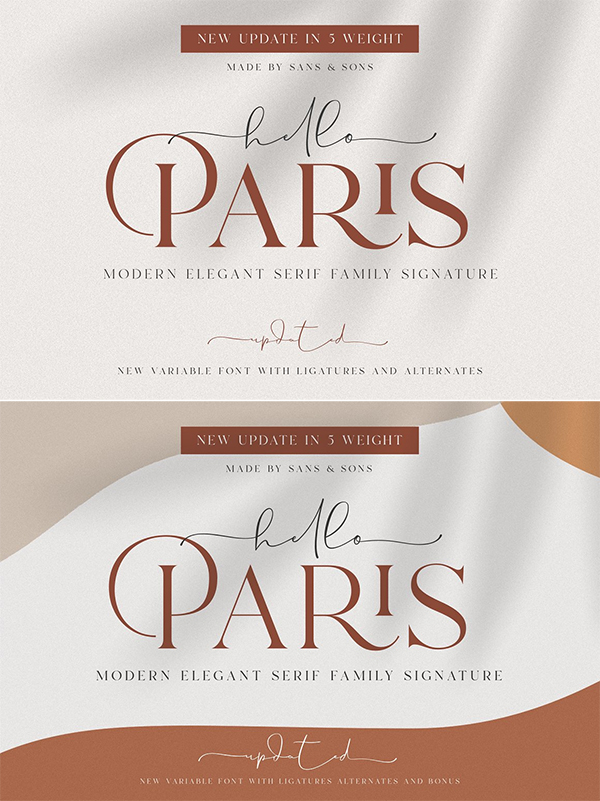
Rossanova Elegant Font
Rossanova is complete semi-serif font family. Its consist of 36 fonts; 2 optical size, 8 weight from thin to black with each matching italics. Rossanova is enrich with beautiful personality, its shaped in high contrast strokes for the normal optical style and moderate contrast strokes for the text styles which fit for reading. Contain more than 470 glyphs with some opentype features e.g, stylistic alternates, ligature, discretionary ligature, old number, variation of figures e.t.c.
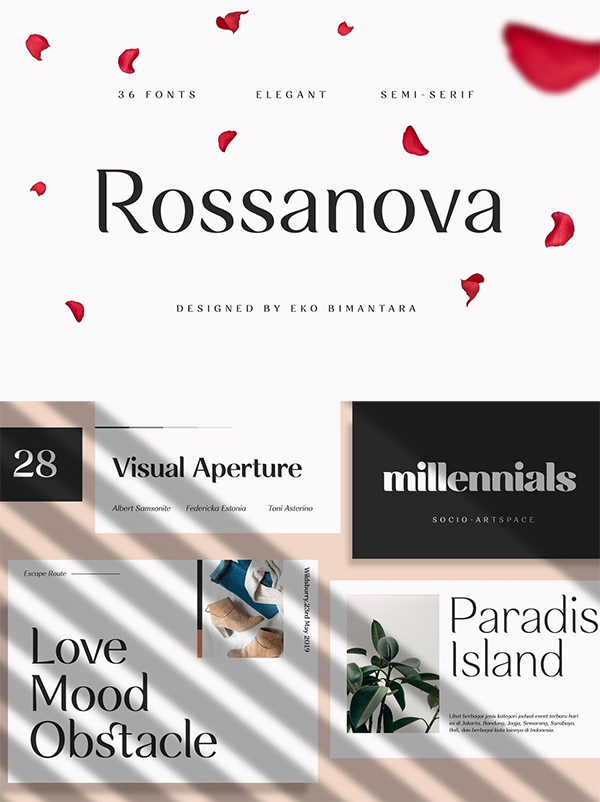
Hunter – Serif Ligature Font
Hunter is an elegant, unique font that uses ligatures to smoothly link letters. Perfect for adding a unique twist to word-mark logos, monograms or pull quotes. Hunter has 20 ligatures as well as numbers and punctuation making it super versatile.
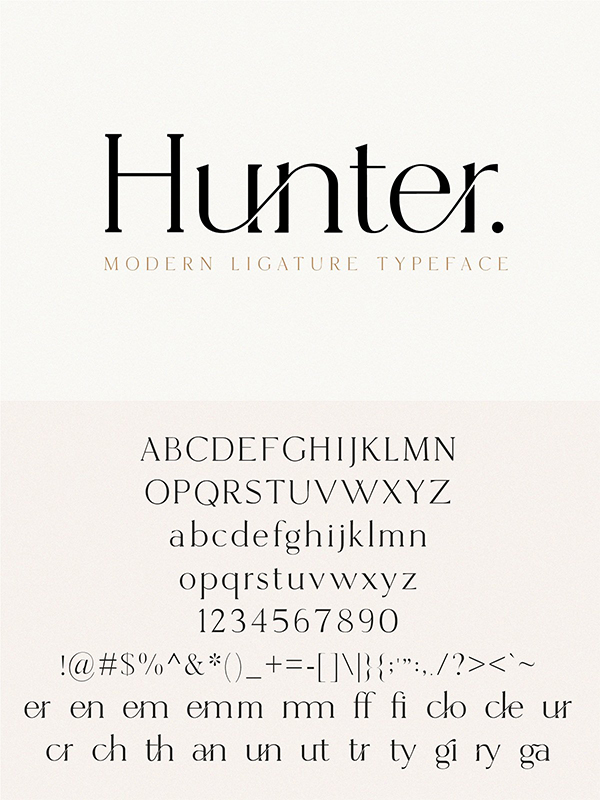
KINFOLK – Modern Serif Font
Kinfolk is a classic style serif typeface that has been modernised with its unique curves and cut-ins making it one of the most memorable caps fonts on the market. This versatile font can be used for wordmark logos, mastheads, pull quotes & monograms showing both feminine and masculine qualities.
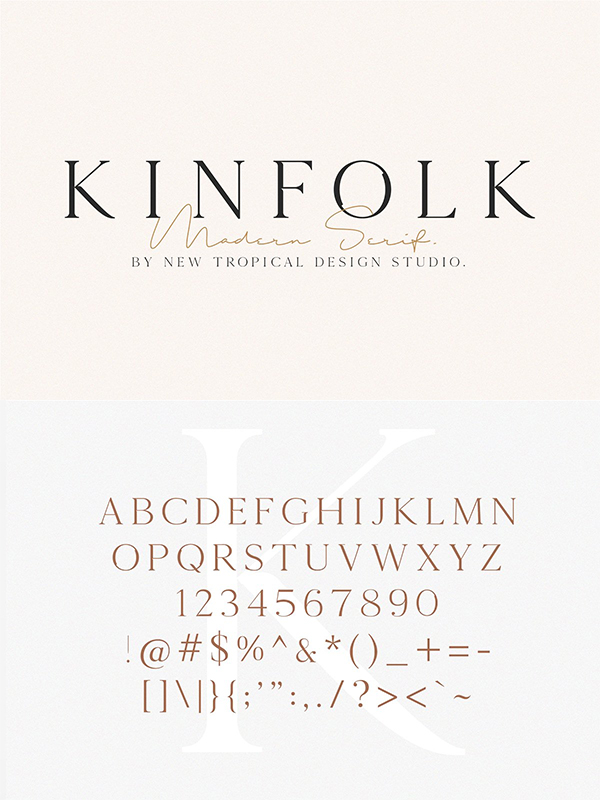
Mikela Gorgeous Font
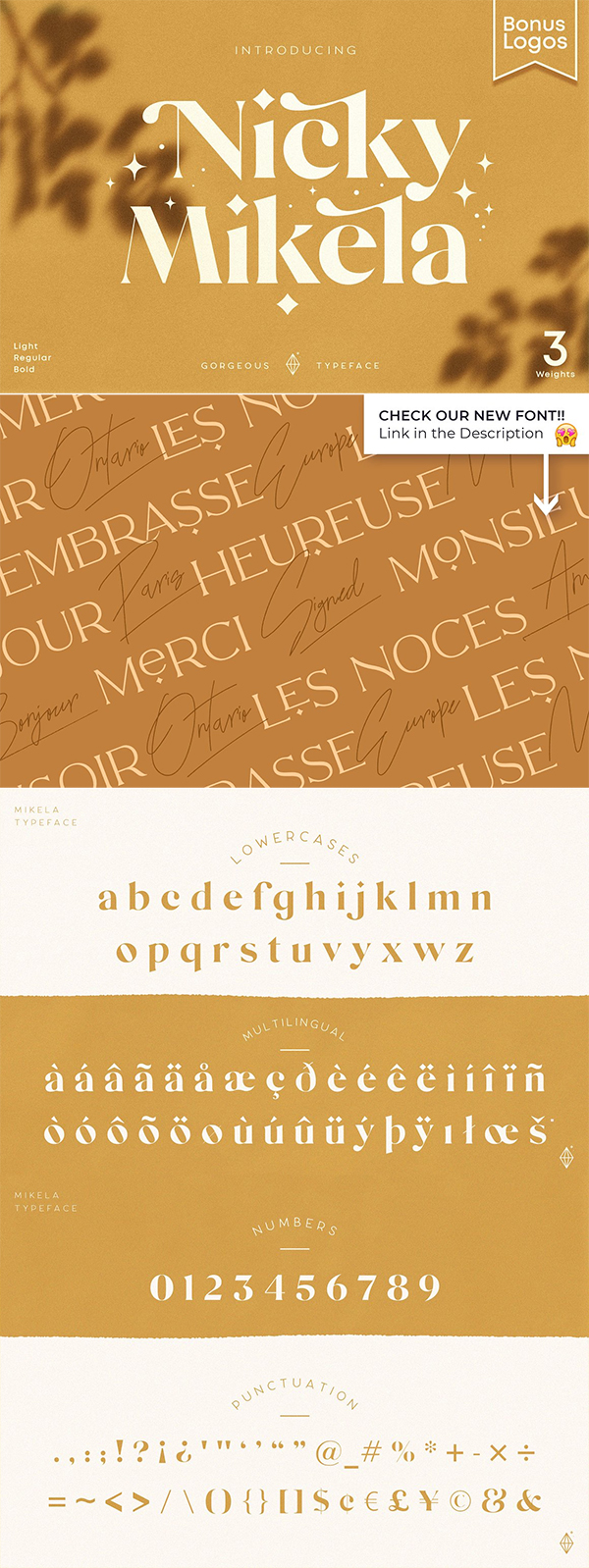
Vintage Serif Font
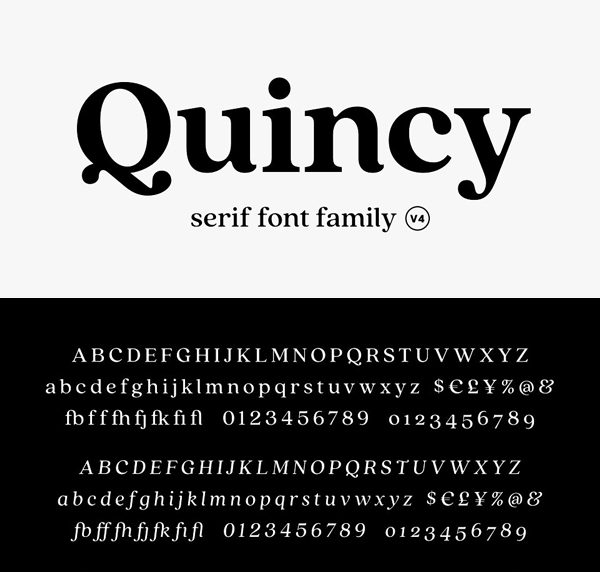
Glamour Absolute Modern / Vintage Font
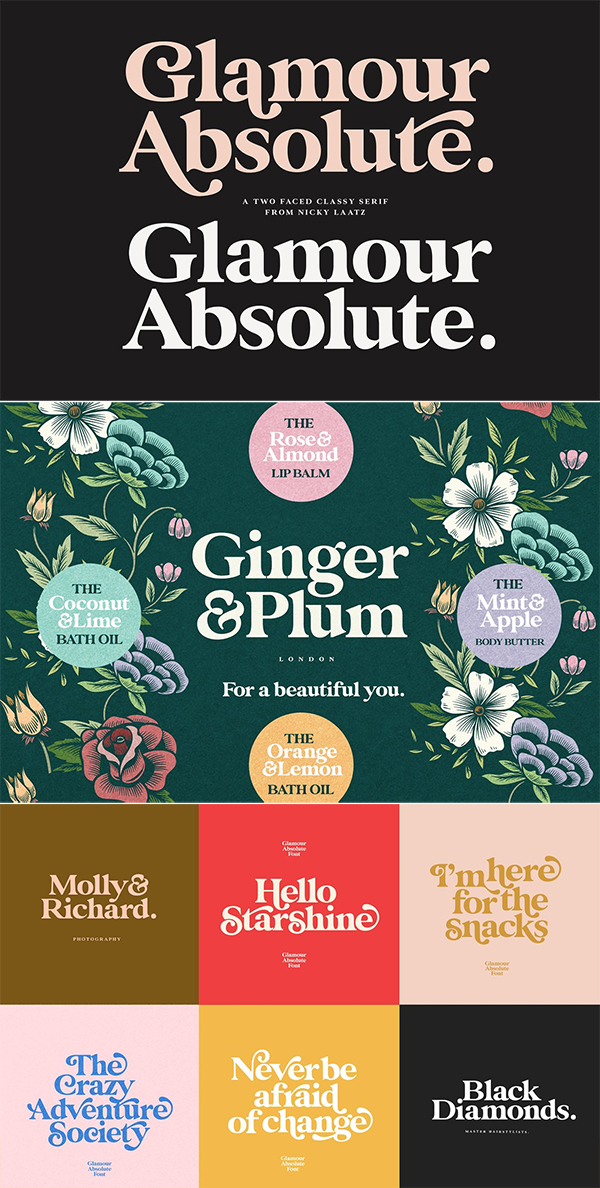
Sophillia – Ligature Serif Font
Sophillia is a super unique ligature font that you wont forget! It’s a high contrast serif that has loads of style. A modern take on a Caslon style typeface, this font is ideal for those big bold headings or wedding invitations. It’s got hundreds of characters and ligatures plus all those European letters! Sophillia pairs perfectly with a light scripts font or minimal sans serif.
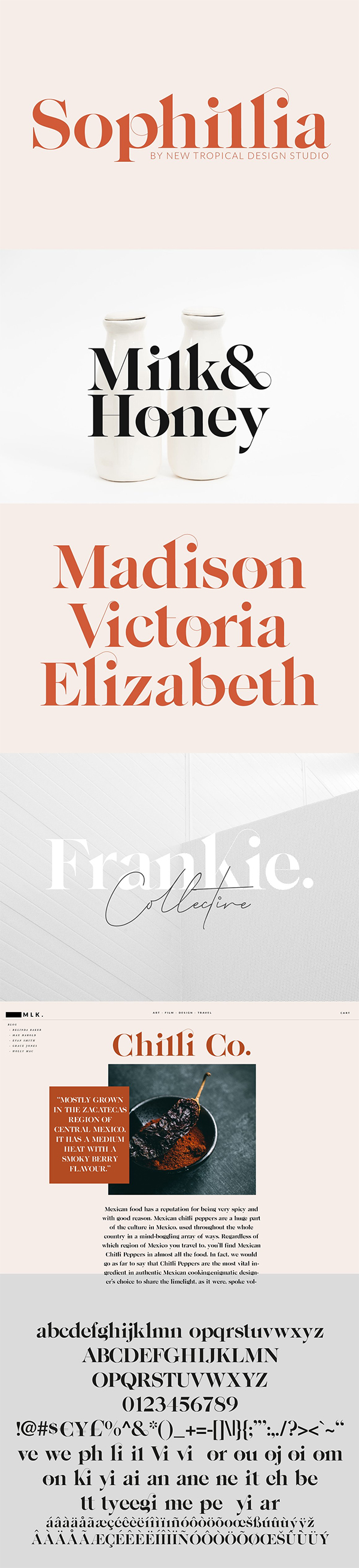
Best Elegant Font
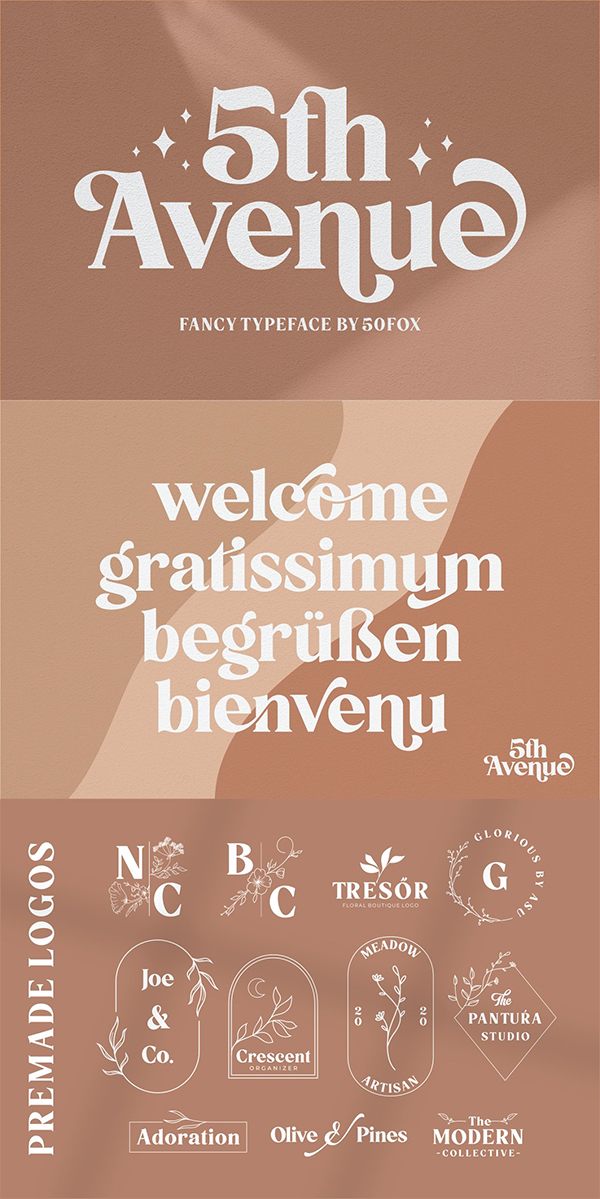
Wished | Hand-drawn Serif Font
Wished is an imperfect, hand-drawn serif font. It has a modern look with a free-spirit touch! There are a fun set of alternative letters to play with as well.
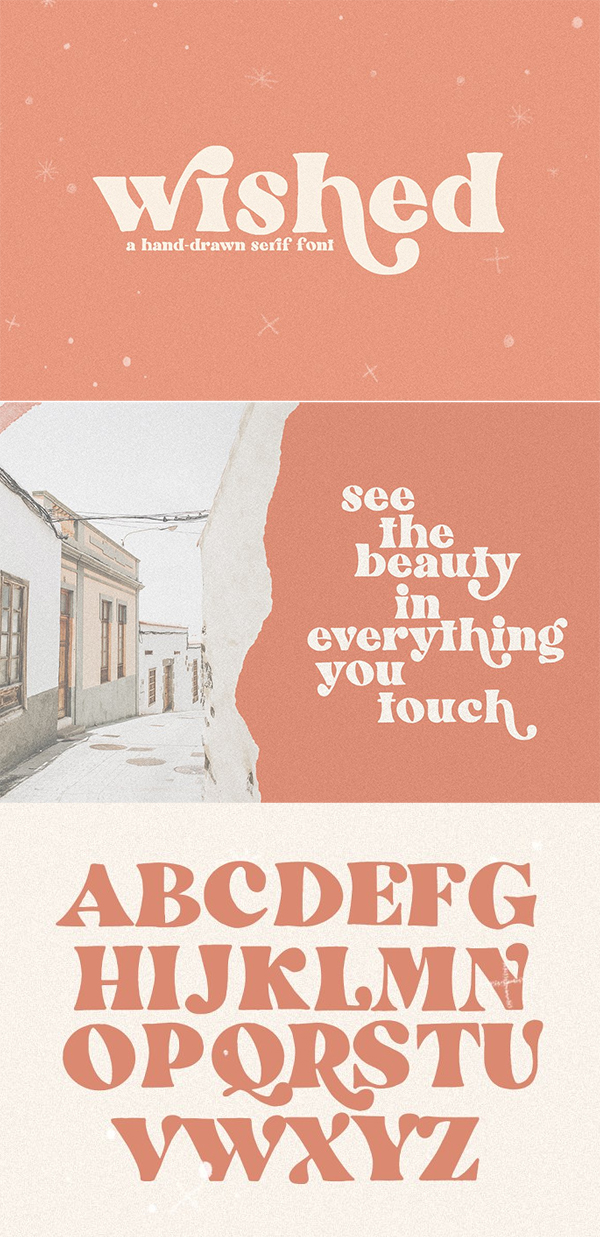
Sonara Serif Font
Mirage Elegant Font
Dillan Soft Serif Font
Celesse – Classic Font
Indigo Moon Decadent Serif Font
Introducing Indigo Moon – a decadent, classic serif with over 150 hand-illustrated alternates, and preserved texture, for a uniquely vintage, yet modern feel.
Sage Serif Font
Sage is a modern serif typeface with lots of style. A high contrast version of a famous Didot look that has been synonymous with fashion for decades. This font has over 100 glyphs with multilingual letters included. This font is both modern and nostalgic and works great for logos, mastheads and pull quotes. It pairs beautifully with a minimal sans serif or light script font.
Vintage Stylist Font
Vintage Stylist is a modern vintage serif font loaded with alternates and ligatures that makes for stunning logos, quotes, wedding invites, blog posts, Instagram, and more.
Wicked Hearts Retro Serif
Wicked Hearts Is a chunky Serif font with an edge – it’s a cool modern take on a retro classic, and it’s ready to make a lasting impression on your merchandise, quote designs, header text, logos & branding, advertisements and much more. It’s packed with plenty of alternates and ligatures to really bring it to life, and give you a wide range of customisation options.
Expressive Serif Font
Ochre | A Branding Serif